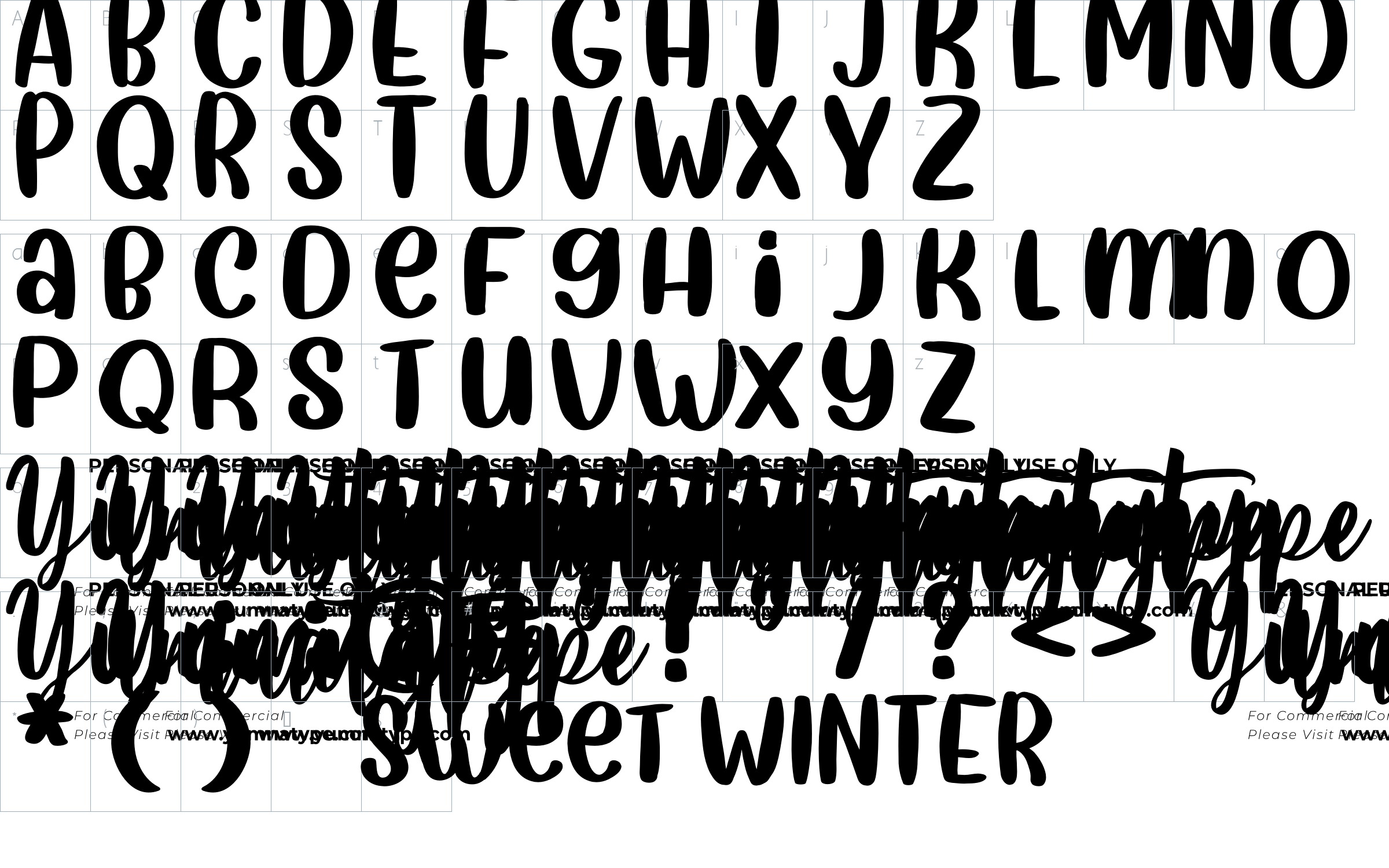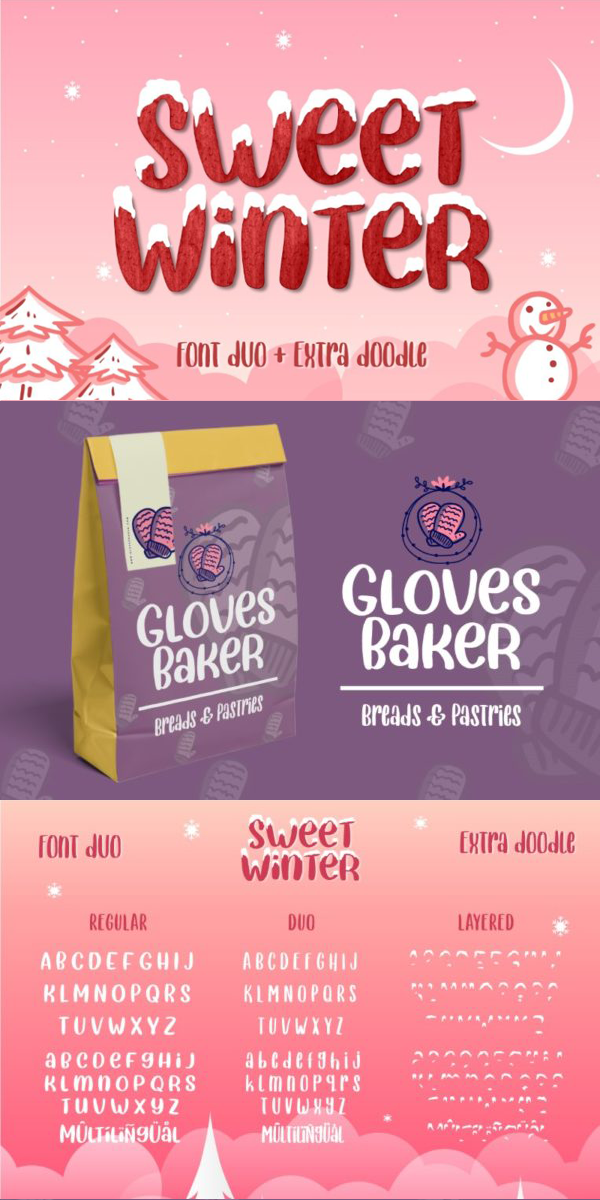
Sweet Winter Font
About Sweet Winter
Introducing Sweet Winter Display font (Layered font). Sweet Winter is a beautiful Display font. The family consists of 3 font. This font is suitable for any design like branding, quotes, t-shirt printing and etc.
-Sweet Winter Regular
-Sweet Winter Snow Layered
-Sweet Winter Duo